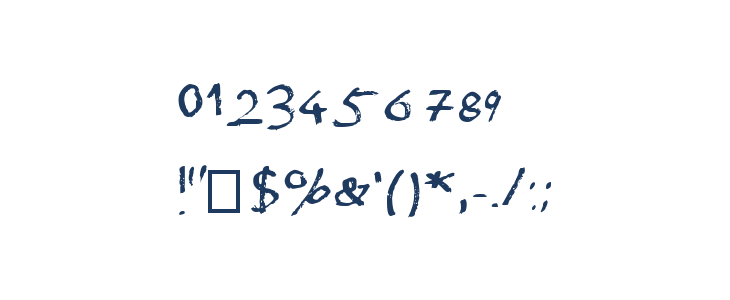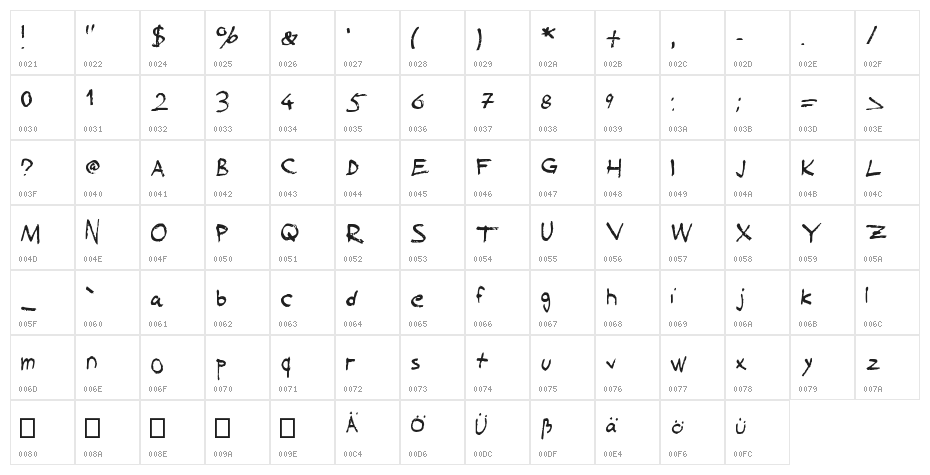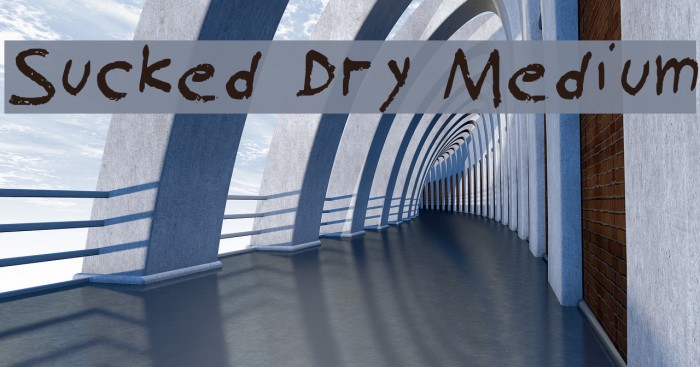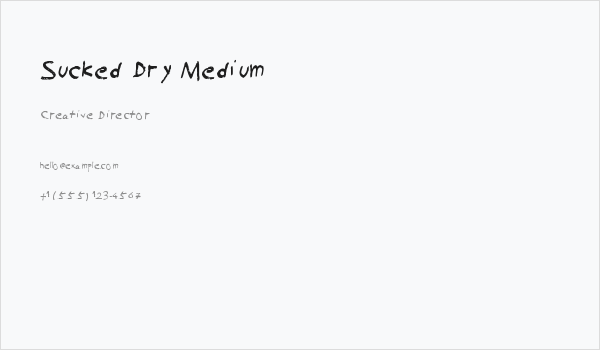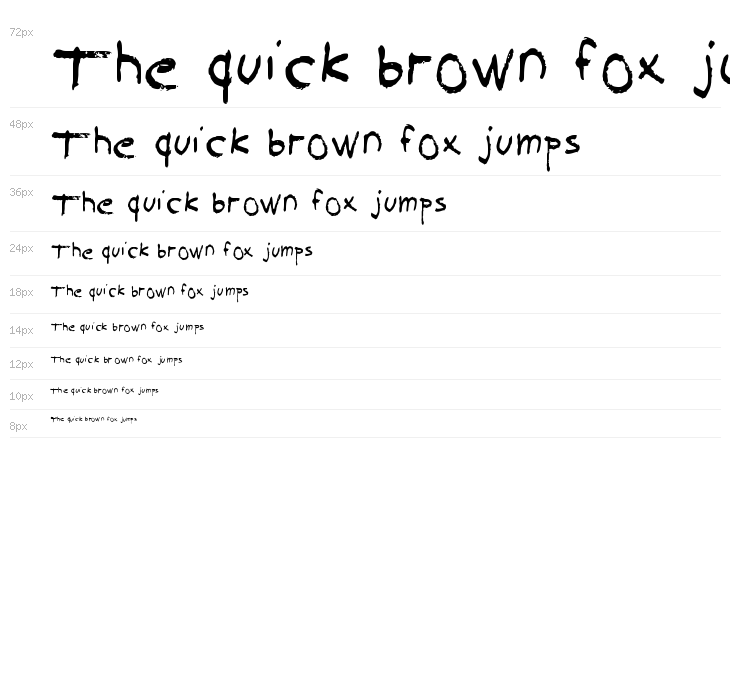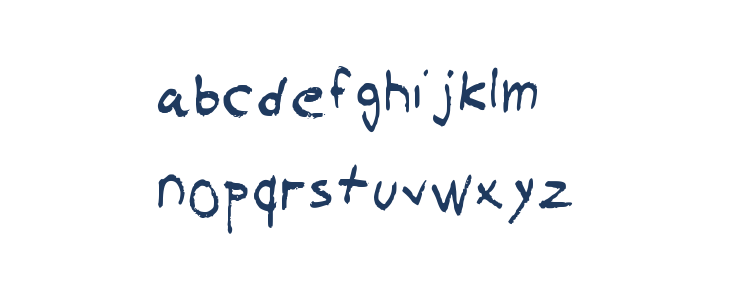
Sucked Dry Medium Font
Sucked Dry Medium Description
This font features a distressed, hand-drawn appearance with uneven strokes and a rough texture, giving it a raw and edgy feel. The characters are irregularly shaped, with varying thicknesses that create a dynamic and energetic look. The uppercase and lowercase letters maintain a consistent style, while the numerals and special characters complement the overall aesthetic. This font's unique design makes it stand out, offering a bold statement in any project.
| Overall Style | Edgy, Artistic, Raw |